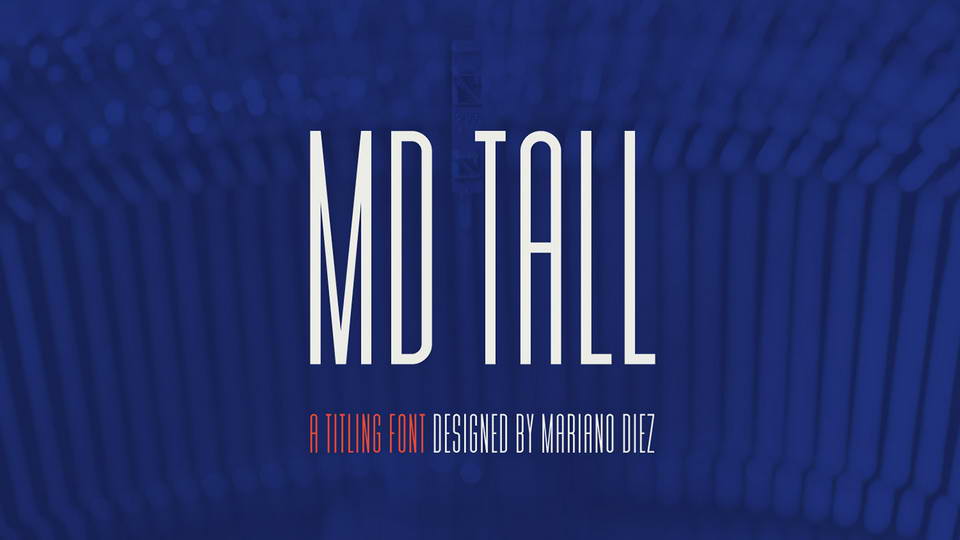
MD Tall a free ultra condensed titling sans serif font. It contains all caps letters, numerals and symbols, supports multilanguage. This font suits for logos, badges and labels, headlines, posters and other display purposes.